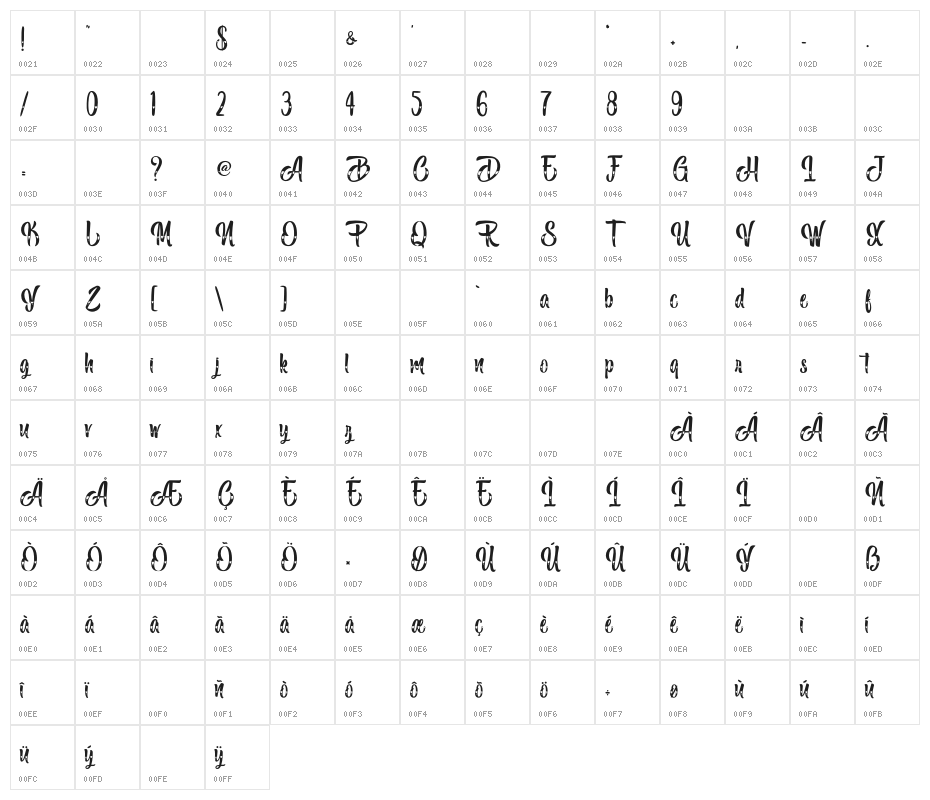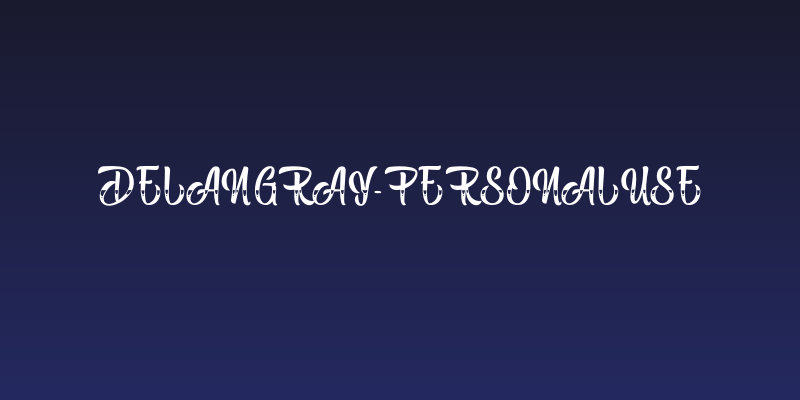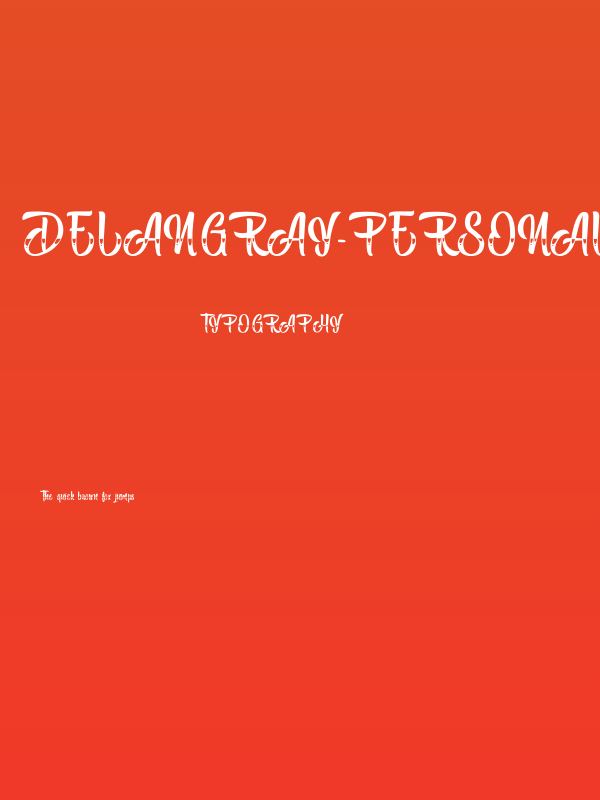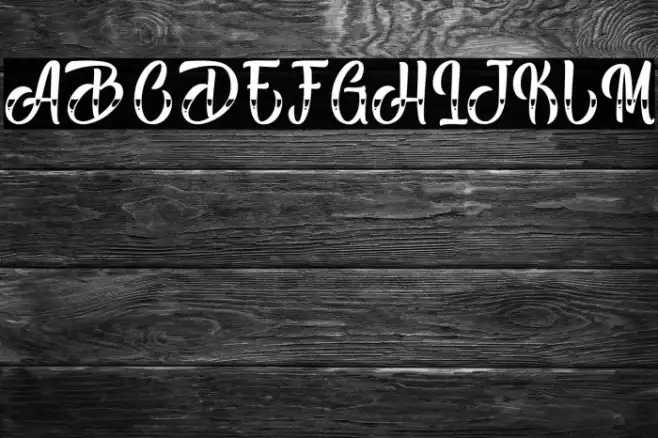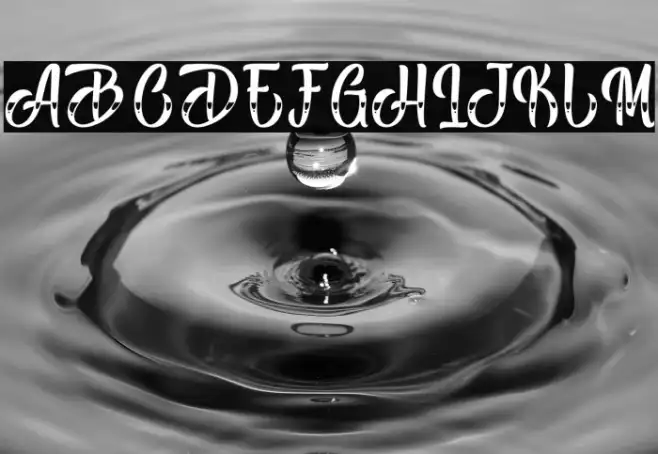
DelanGray-PersonalUse Font
DelanGray-PersonalUse Description
This font features a playful and decorative style with a handwritten appearance. The letters are bold and exhibit a unique, artistic flair with swirls and loops that give it a whimsical feel. The uppercase letters are particularly ornate, while the lowercase letters maintain a consistent flow. Numbers and special characters are designed to match the overall aesthetic, making it suitable for creative projects. The font's design is eye-catching and ideal for adding a personal touch to any text.